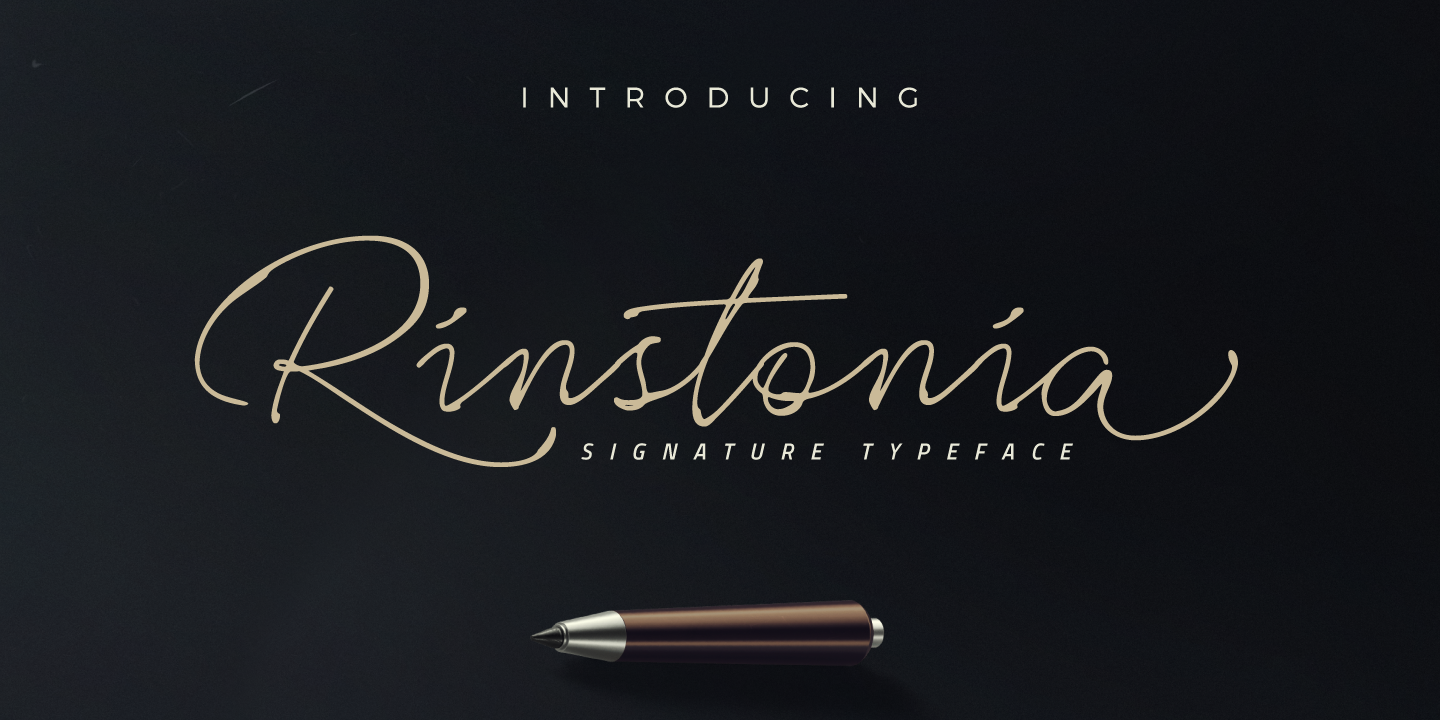
Rinstonia Font is perfect for contemporary business branding, modern tech startup identities, sleek product packaging, innovative corporate communications, progressive digital interfaces, sophisticated marketing materials, clean architectural signage, and forward-thinking professional designs.
Rinstonia Font is exciting because it captures the essence of modern innovation and professional sophistication through its refined character design that embodies the clean efficiency of contemporary business and the forward-thinking spirit of technological advancement. Its modern styling and professional appeal make it the perfect choice for brands that want to communicate progress, reliability, and the confident excellence of modern professional achievement.
Rinstonia Font family includes multiple contemporary variations: Rinstonia Thin, Rinstonia Light, Rinstonia Regular, Rinstonia Medium, Rinstonia Bold, and Rinstonia Black, along with condensed and extended versions, providing designers with comprehensive tools for creating sophisticated modern and professional brand experiences.
When exploring contemporary professional typography solutions, Rinstonia Font Free Download stands out as the premier choice for designers working on modern business and technology projects that require genuine contemporary sophistication and professional appeal. This versatile typeface embodies the essence of modern business excellence while offering the technical precision that contemporary corporations and tech companies require. The font's clean character and professional authenticity create immediate connections with audiences who appreciate modern efficiency and business innovation.
Business professionals consistently rely on Rinstonia Font for projects requiring authentic modern sophistication and powerful professional appeal. Its expertly crafted letterforms feature contemporary influences that work exceptionally well in both large-scale corporate headquarters displays and intimate business communication materials. The font's ability to convey competence and modern elegance while maintaining perfect readability makes it invaluable for comprehensive brand identity systems in the corporate services, technology innovation, and professional consulting sectors.
Whether you're developing modern corporate identities, creating tech startup marketing materials, or designing professional presentation systems, Rinstonia Font delivers the authentic contemporary character and business appeal that resonates with audiences who embrace modern innovation and professional excellence. Its business significance and clean design ensure your projects communicate cutting-edge competence while maintaining timeless professional standards that attract modern clients and forward-thinking business decision-makers.